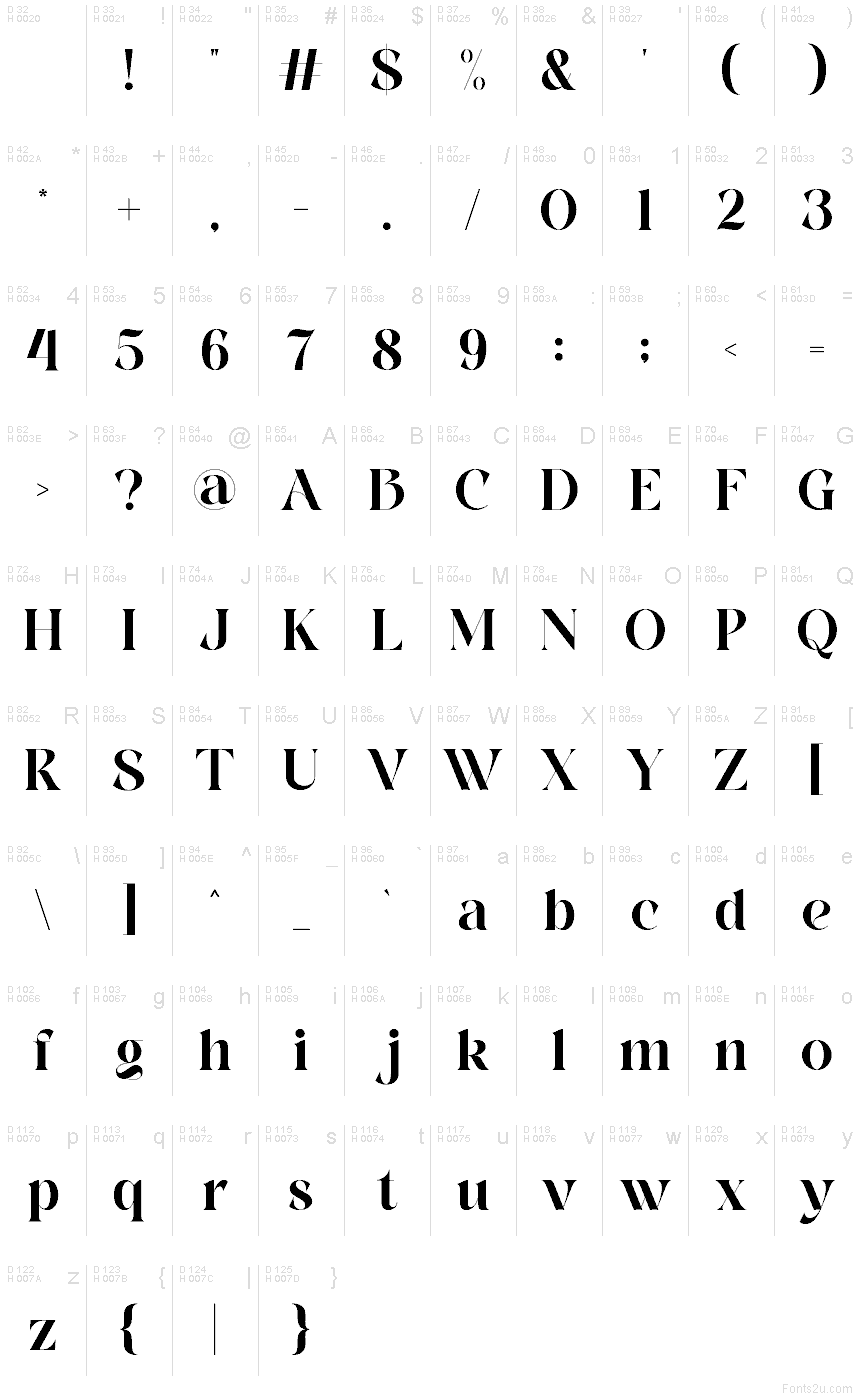
Ethero Regular
Ethero font by Ermedia Studio is a free vintage serif font. Built around dramatic contrast and razor-edged serifs, it feels carved rather than drawn—inky blacks snap into hairline thins, and the curves have a sculpted, almost glossy tension. The result is a modern-classic voice: glamorous, decisive, and unmistakably editorial without slipping into fussiness.
Using Ethero, headlines lock in with a confident rhythm that shines on fashion branding, magazine mastheads, wine or perfume labels, boutique packaging, event invitations, and statement posters. This free font thrives at large sizes with slightly opened tracking for air and drama. For body copy or captions, pair it with a lean, understated sans to let Ethero’s high-contrast shapes take center stage.